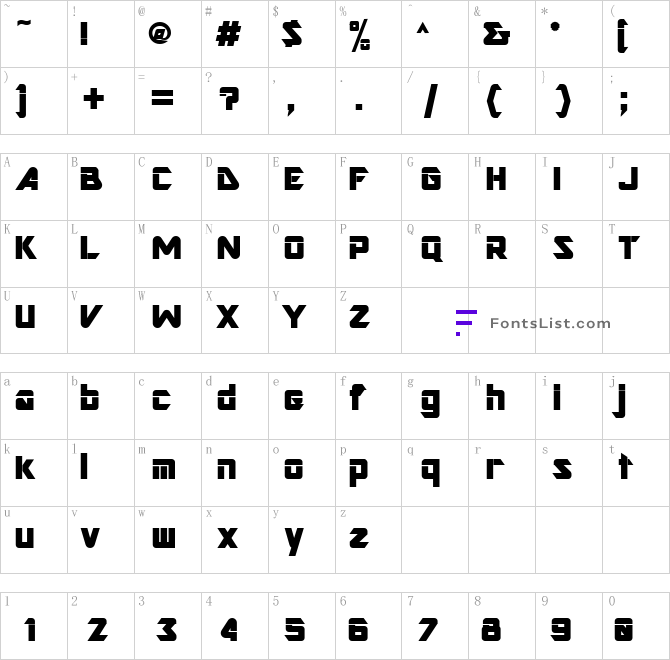
- Font Name:ArtRecord114
ArtRecord114-Bold.ttf is a very beautiful artistic font, ArtRecord114-Bold.ttf is widely used in the design and printing of various books and pictures,ArtRecord114-Bold.ttf has a strong visual impact,ArtRecord114-Bold.ttf is a commonly used font in newspapers, magazines and books, and is used in posters, e-commerce Poster design, store design, logo design, font design and other fields.ArtRecord114-Bold.